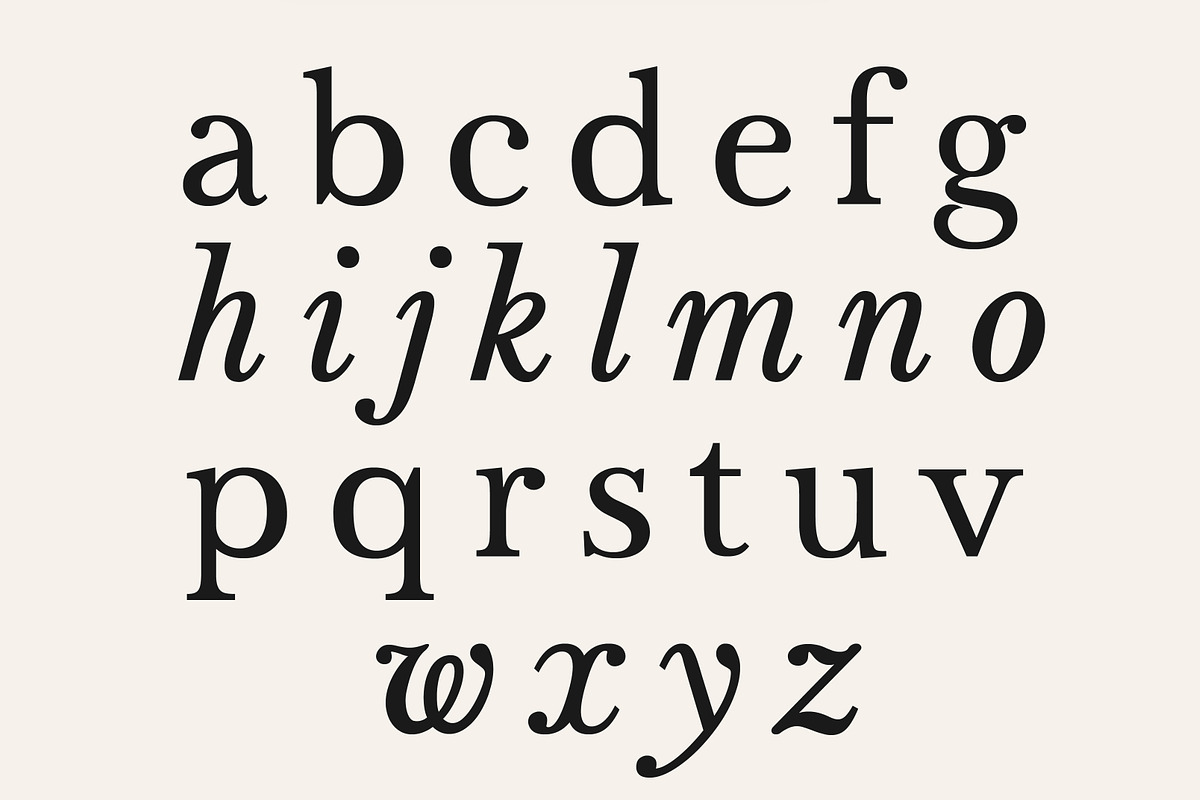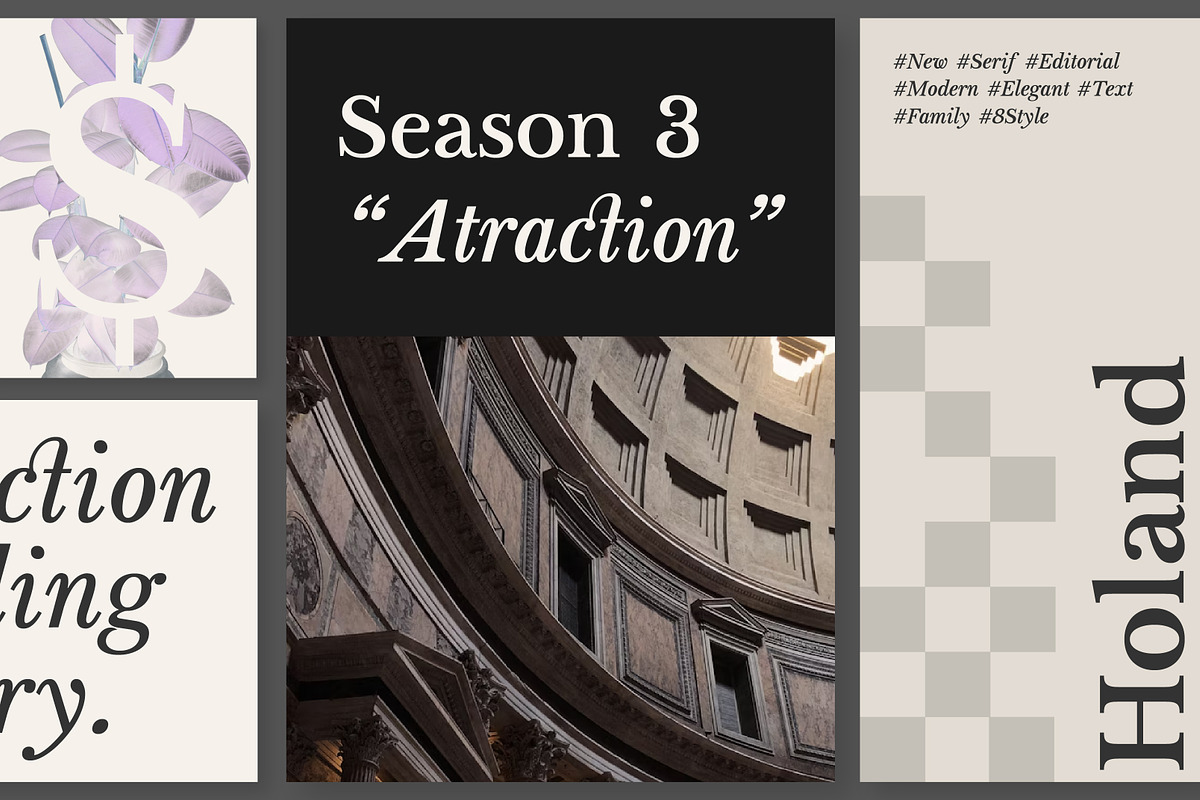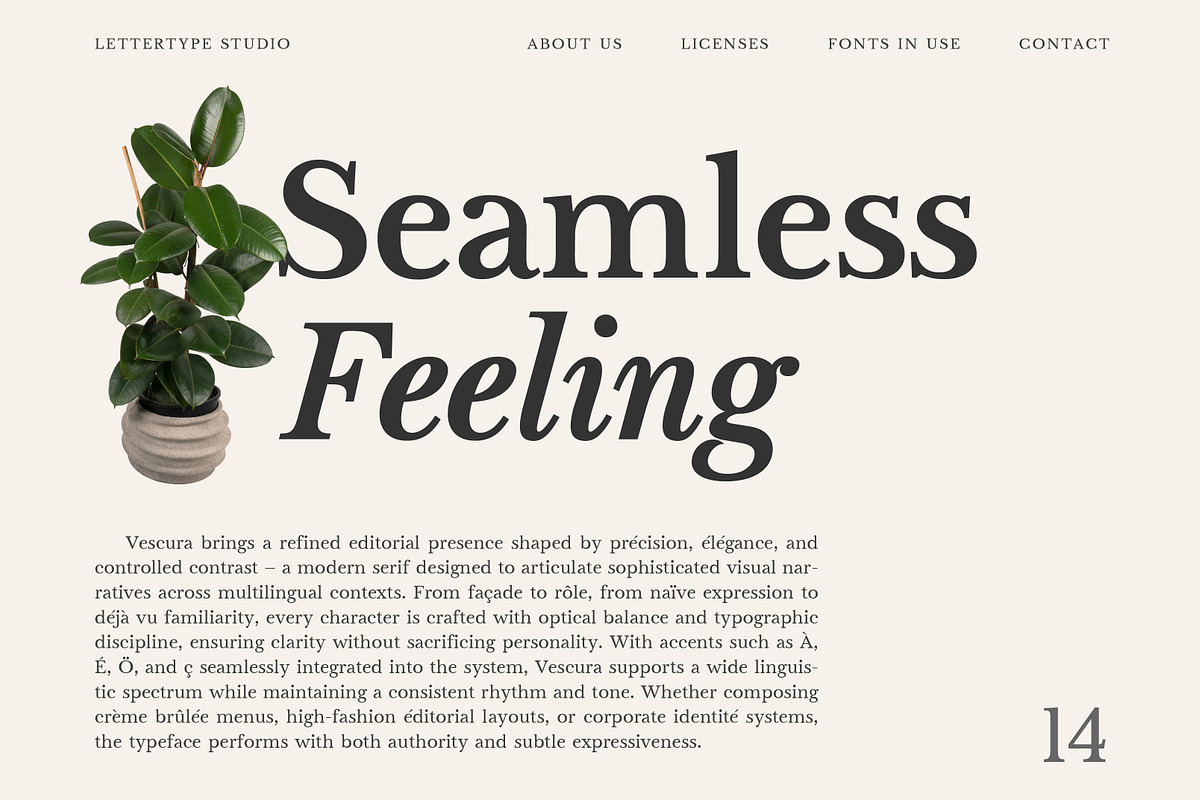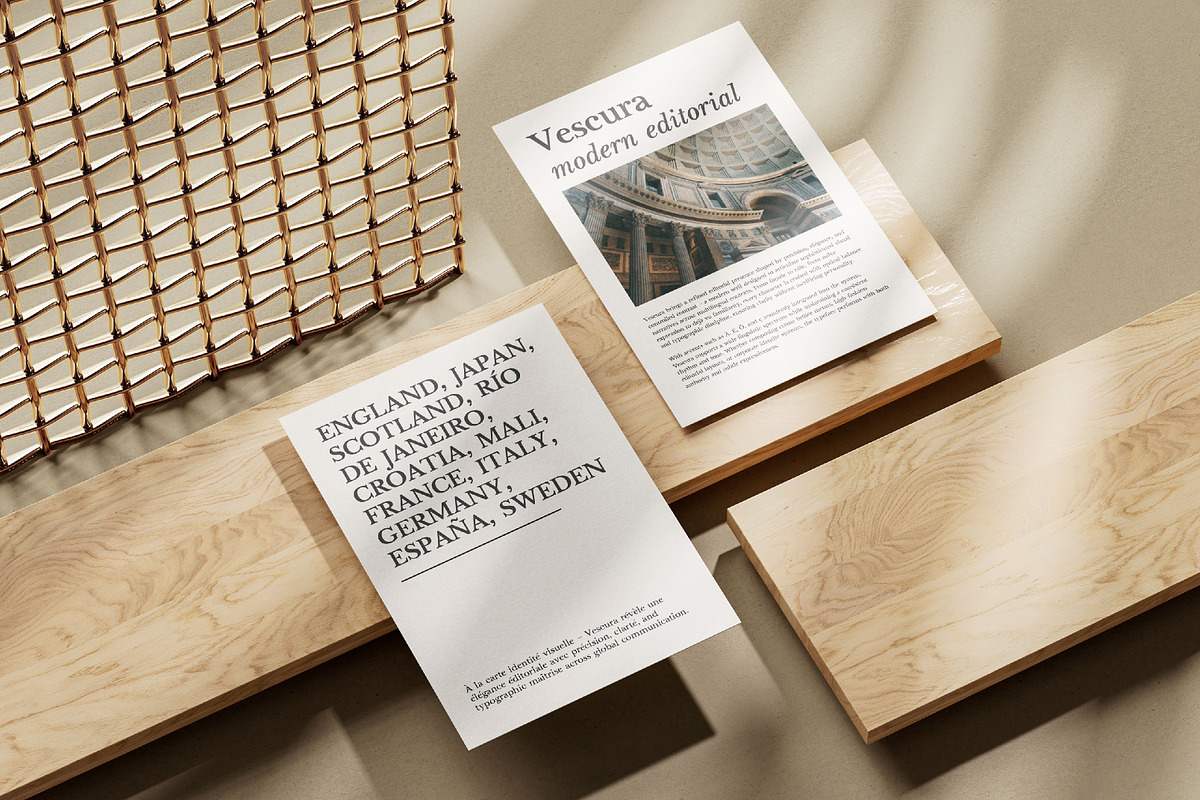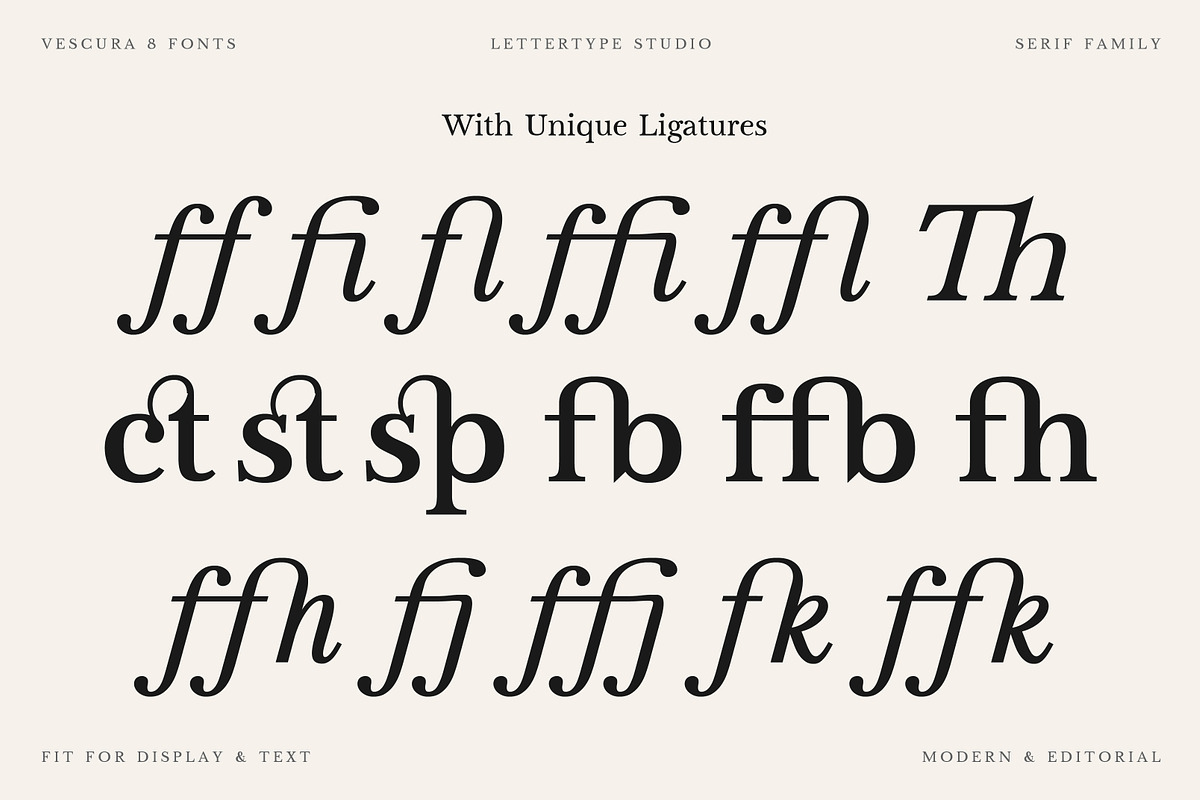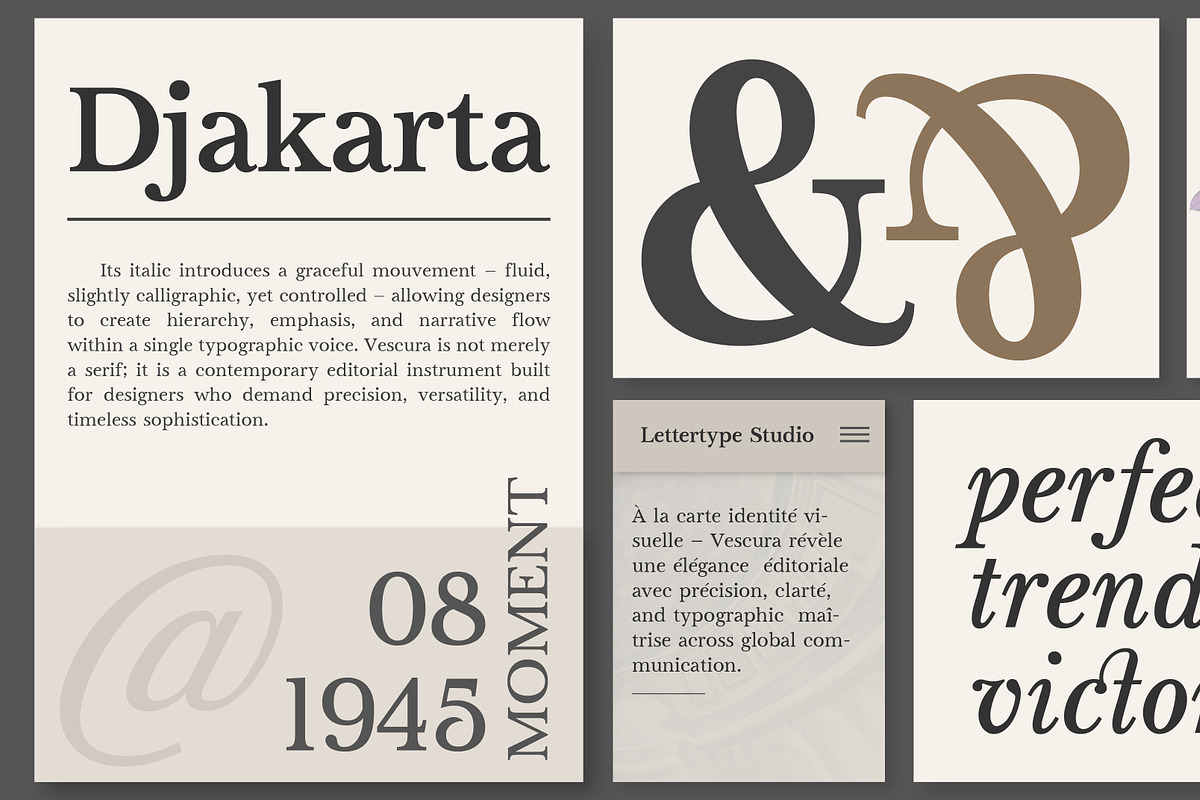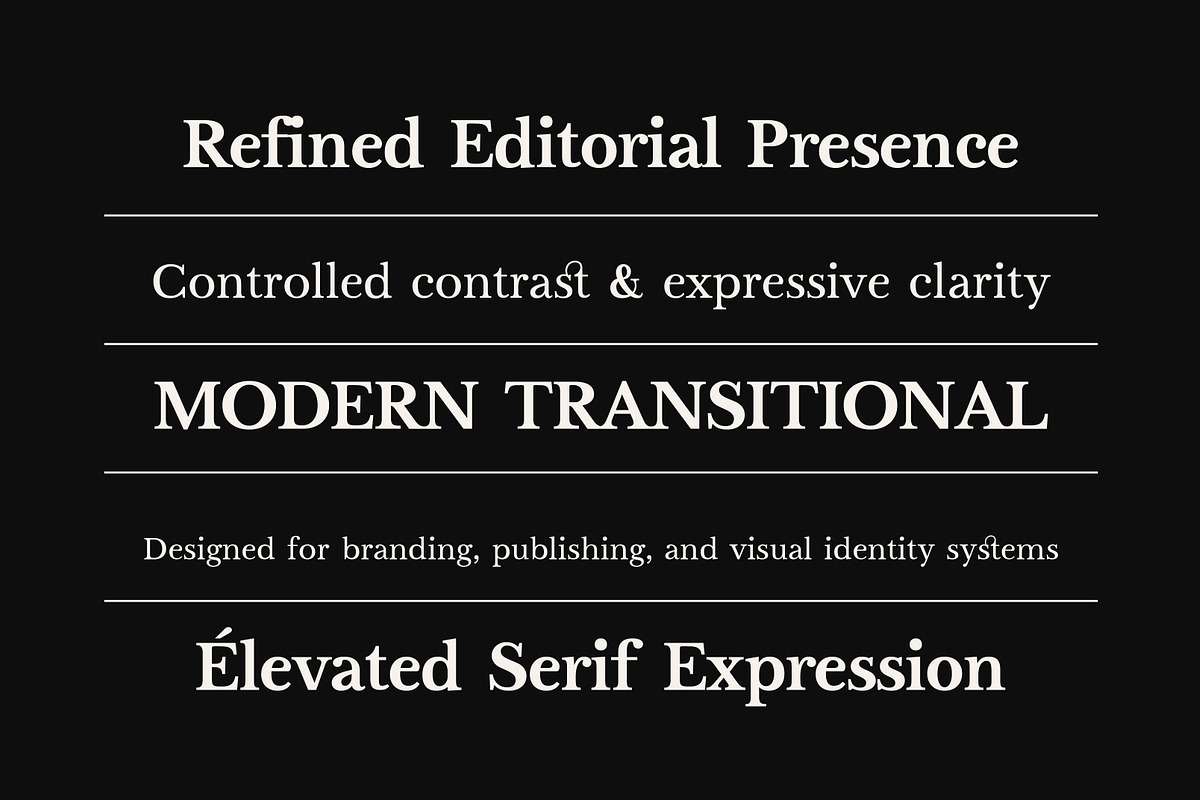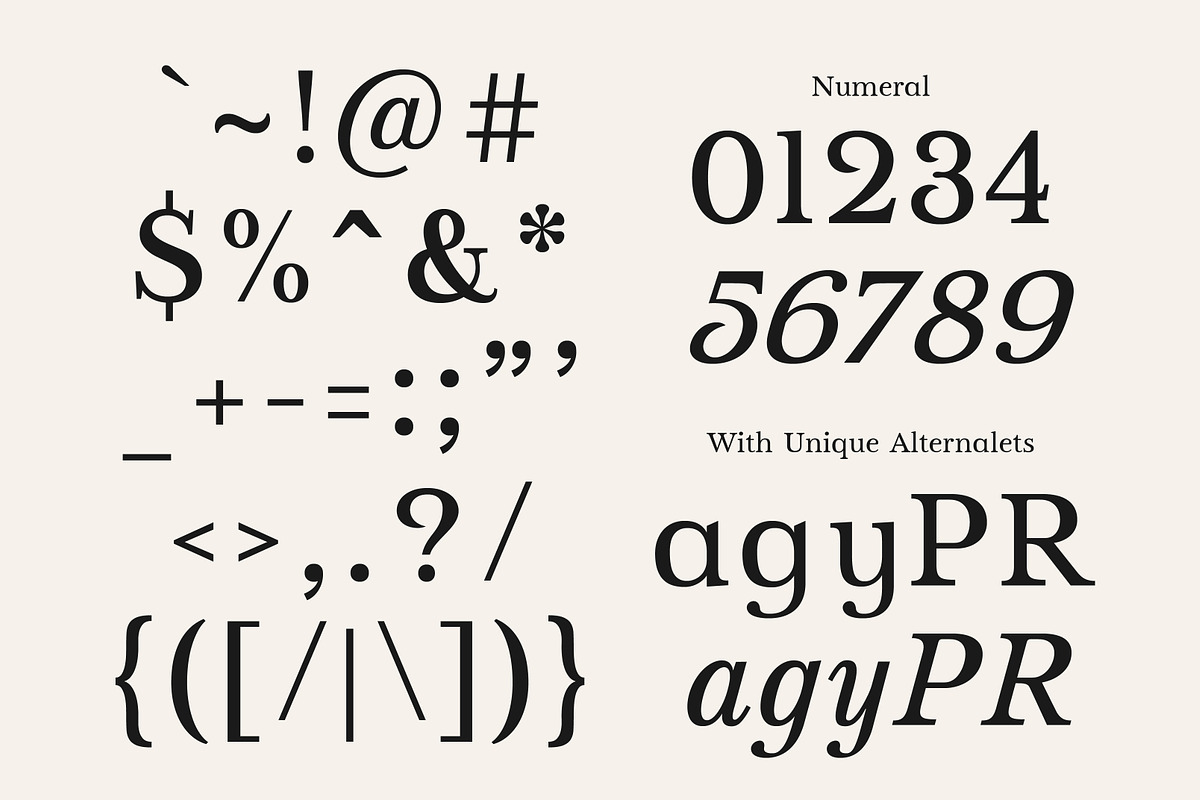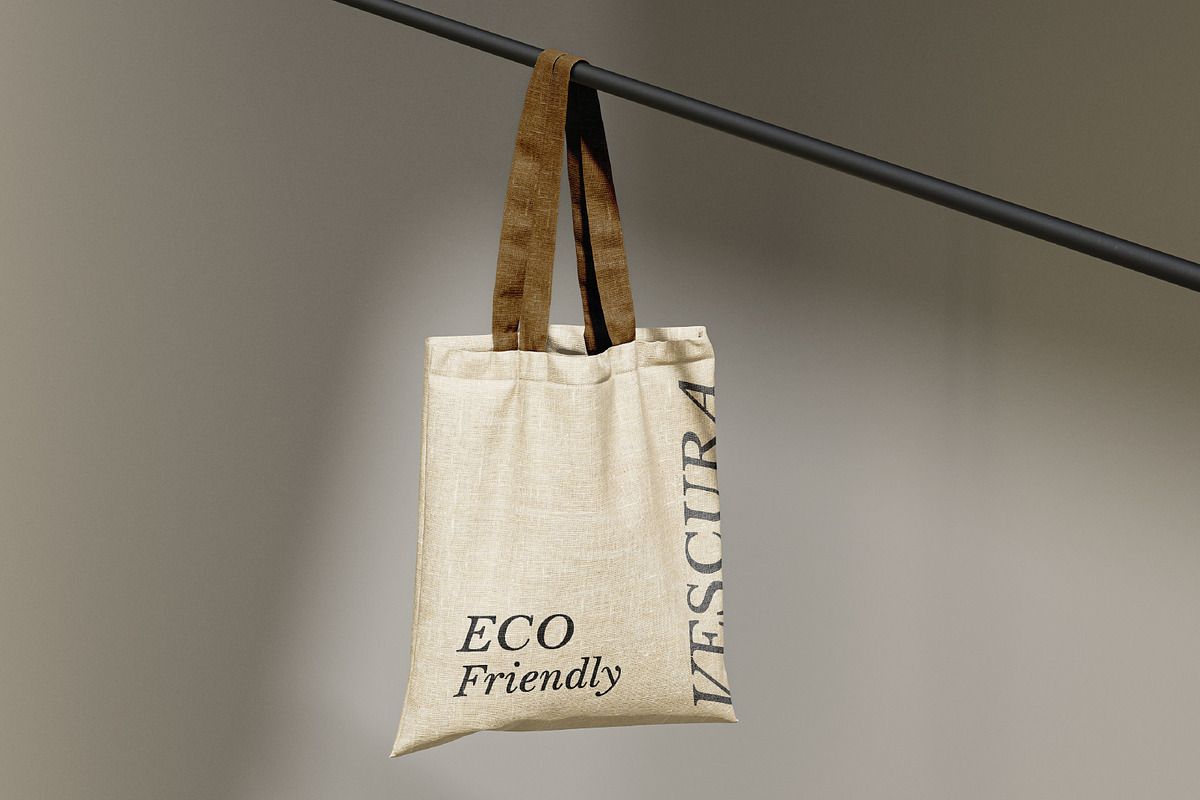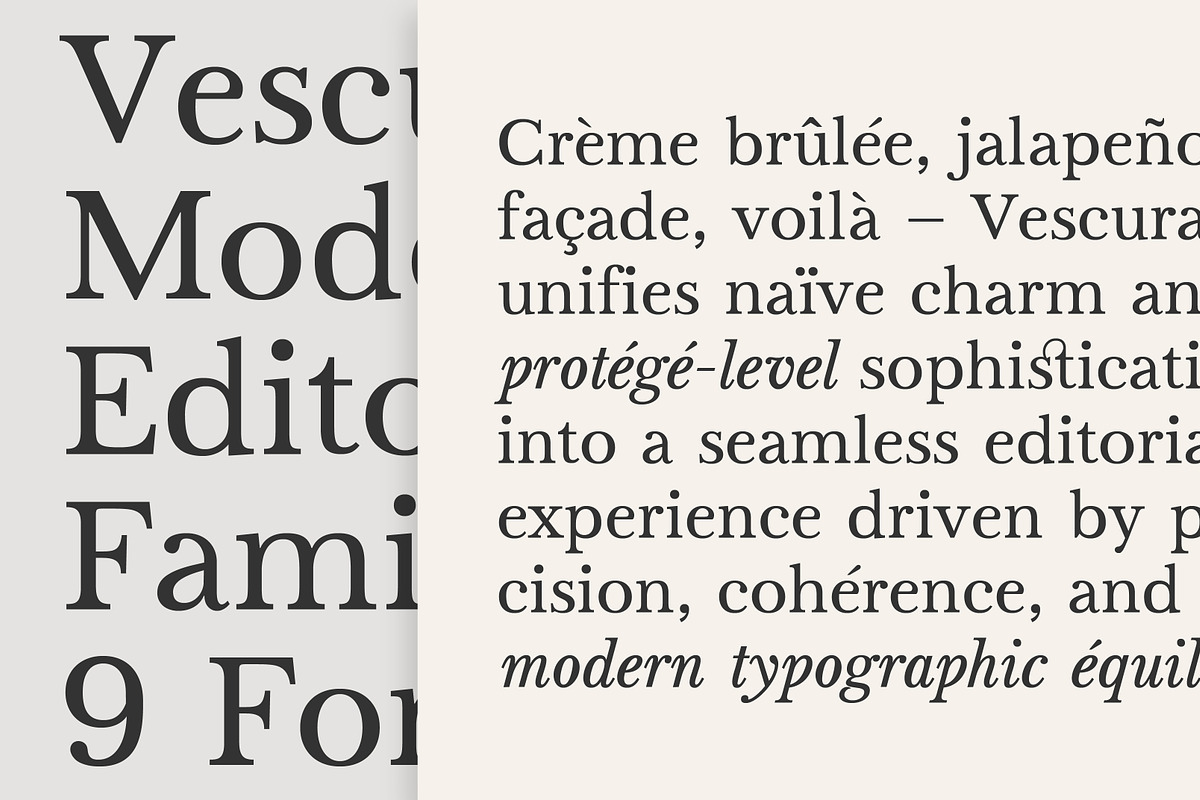
Vescura is a modern transitional serif typeface defined by controlled contrast, balanced proportions, and a refined editorial tone. Its design bridges classical serif foundations with contemporary precision, resulting in a typeface that feels structured yet expressive. The carefully shaped serifs and consistent rhythm create a stable reading experience while maintaining a distinctive visual character.
Designed for versatility, Vescura performs across both display and text applications. Its expressive italic introduces a dynamic contrast to the upright styles, making it especially effective for editorial layouts, branding systems, and modern visual identities.
Vescura Features:
- 8 Styles
- Regular & True Italic
- 10 Alternates & 30 Unique Ligatures
- 490 Glyphs Total
- 260+ Languages Support
- Editorial & Magazine Design
- Luxury Branding & Identity
- Fashion & Beauty Visuals
- Logo & High-End Packaging
- Creative Direction & Art Publishing